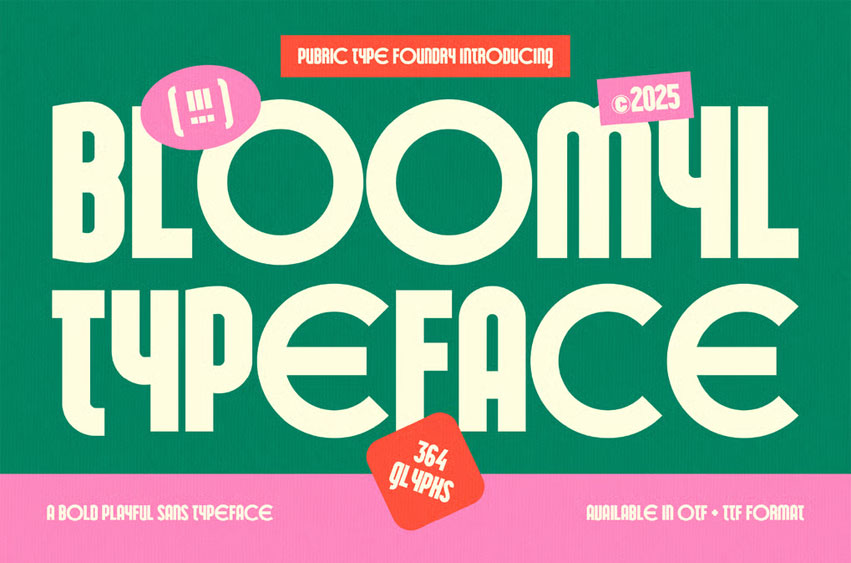
Bloomyl Typeface Font is a bold sans-serif font with a geometric yet playful style. Its smooth curves and strong letterforms create a modern, eye-catching look—perfect for headlines, posters, branding, and designs that want to appear bold and lively.
Ideal for headlines, logos, editorials, packaging, quotes, films, games, album covers, books, and promotional materials. This font ensures your design stands out in any setting.